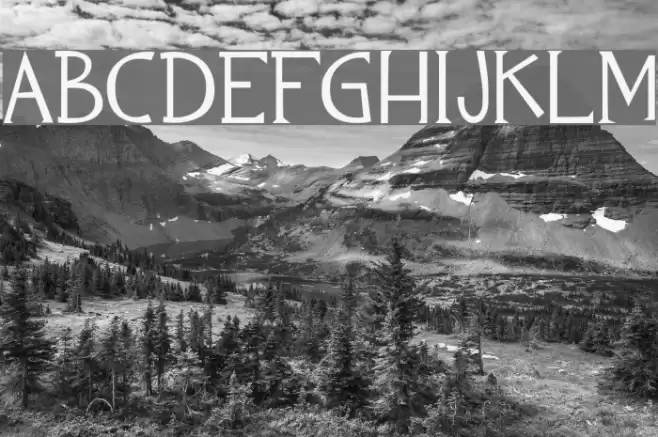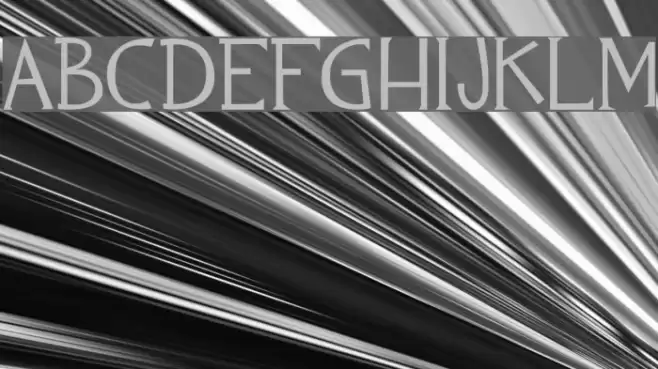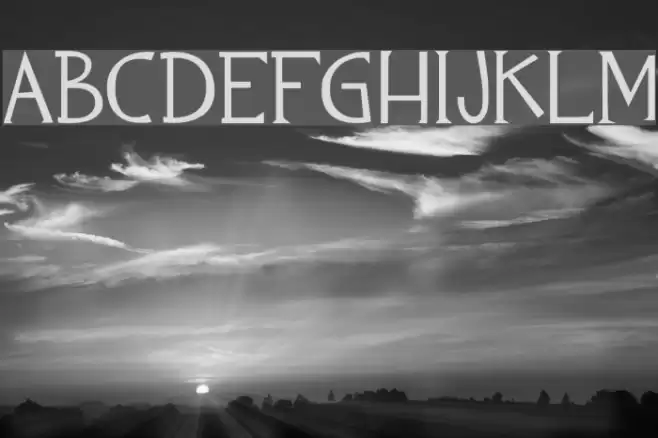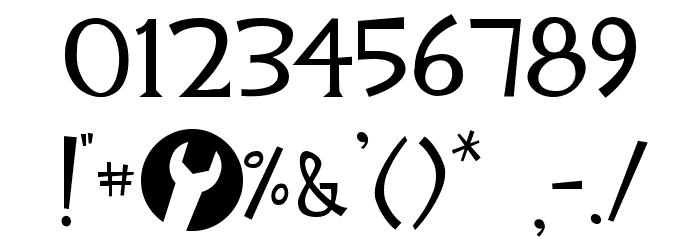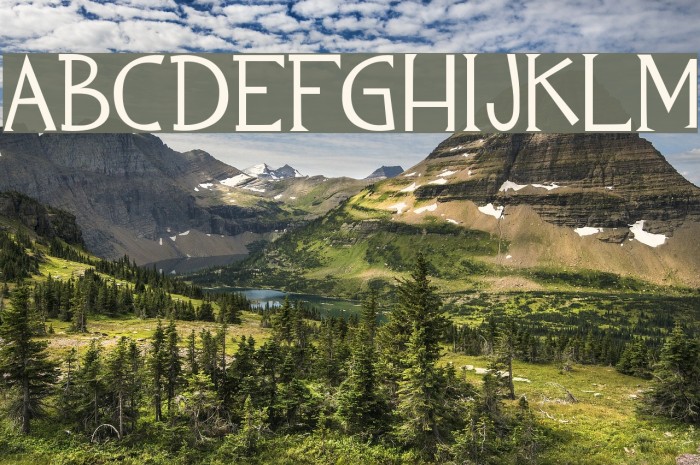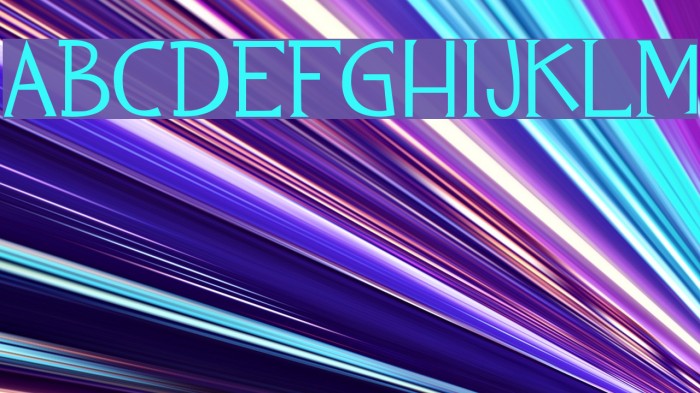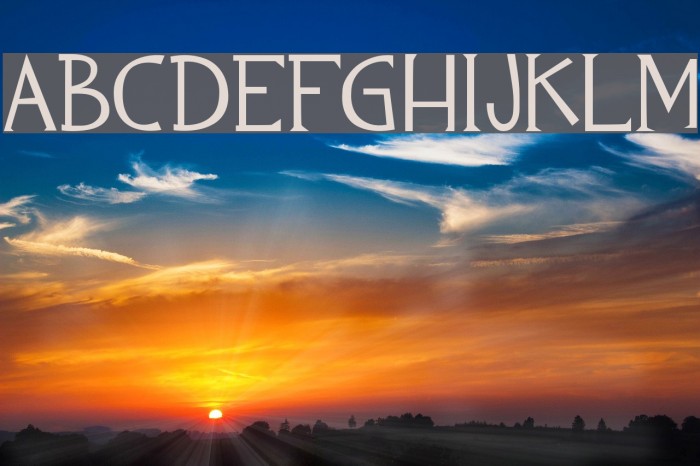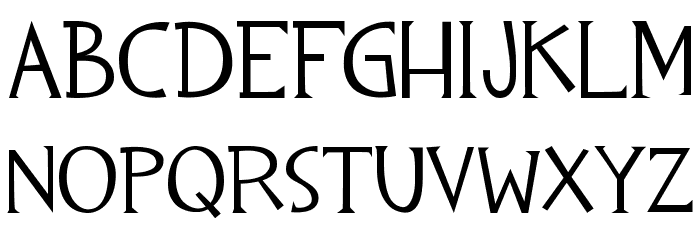
TF2 Font
TF2 Description
This font features a unique blend of modern and classic elements, characterized by its sharp, angular serifs and clean lines. The uppercase letters are bold and commanding, with a slight curvature that adds a touch of elegance. The lowercase letters maintain a consistent style, offering a harmonious balance between readability and aesthetic appeal. The numerals are distinct and well-proportioned, ensuring clarity in numerical data. Special characters are thoughtfully designed, maintaining the overall cohesive look of the font. This typeface is versatile, suitable for a variety of design projects.
A modern serif font with sharp serifs and clean lines, offering elegance and readability from Cartoon fonts.